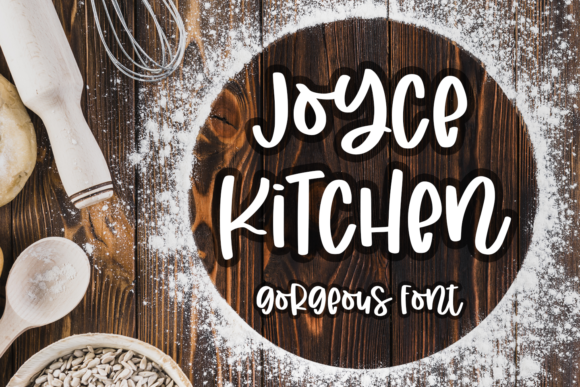
Feast your eyes on Joyce Kitchen Font, a captivating script typeface brimming with charm and uniqueness. Step into a world of elegance and creativity with this exquisite font family, designed by the talented Abodaniel. Joyce Kitchen's alluring strokes are crafted to evoke a sense of playfulness, yet maintaining an air of sophistication that is sure to leave a lasting impression.
Indulge in the beauty of Joyce Kitchen's delicate details. Its enchanting curves and flowing lines dance harmoniously, creating a visually stunning display that will elevate your design projects to new heights. Whether you're crafting invitations, designing social media posts, or creating logos, Joyce Kitchen's versatility knows no bounds. It effortlessly adapts to a multitude of design styles, adding a touch of whimsy and sophistication wherever it goes.
Immerse yourself in the versatility of Joyce Kitchen. Its beauty clinic keyword is no mere label; it's a testament to this font's ability to transform any project into a visual masterpiece. From elegant wedding stationery to chic branding materials, Joyce Kitchen exudes an aura of beauty and sophistication that is simply irresistible.